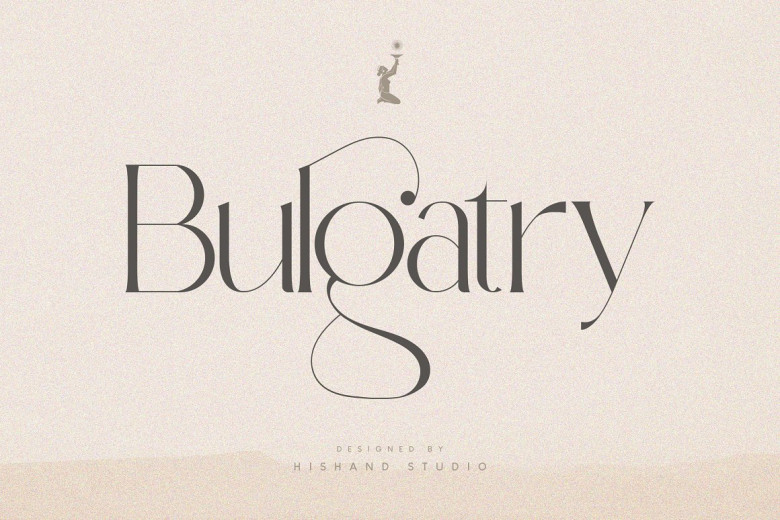
Bulgatry Font
Elegant looks of Bulgatry. the modern serif font family that is inspired from the elegant character of Bali, is suitably modern and classical, both at once. It is hard to find a beautiful handcrafted serif typeface than this. Use for logos, branding, invitations, stationery, wedding designs, social media posts and much much more.
Bulgatry Serif Font